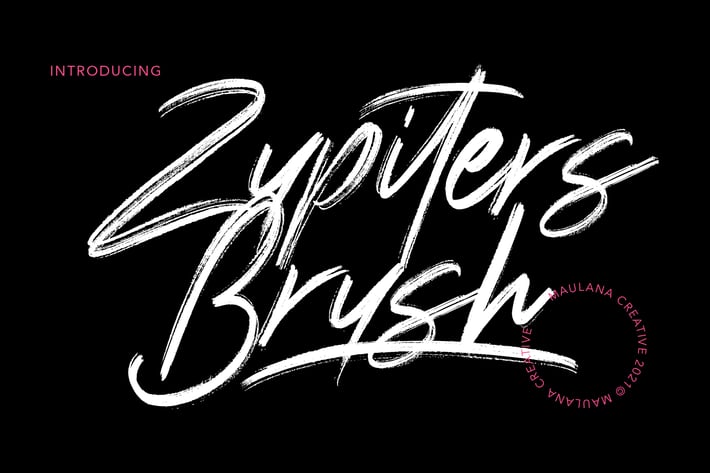
Zupiters Brush Font
Zupiters Brush is a casual rough script font. With natural feel brush stroke, super slanted and fun character with a ligatures. To give you an extra creative work. Zupiters Brush font support multilingual more than 100+ language. This font is good for logo design, Social media, Movie Titles, Books Titles, a short text even a long text letter and good for your secondary text font with sans or serif. Make a stunning work with Zupiters Brush font.